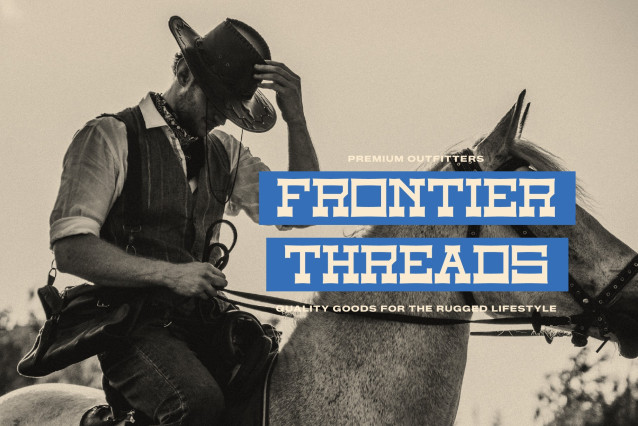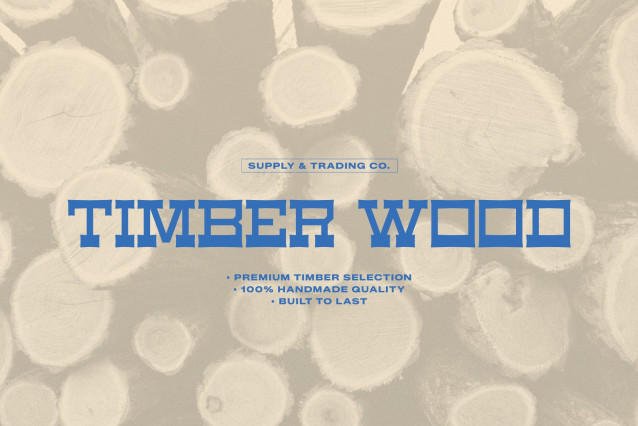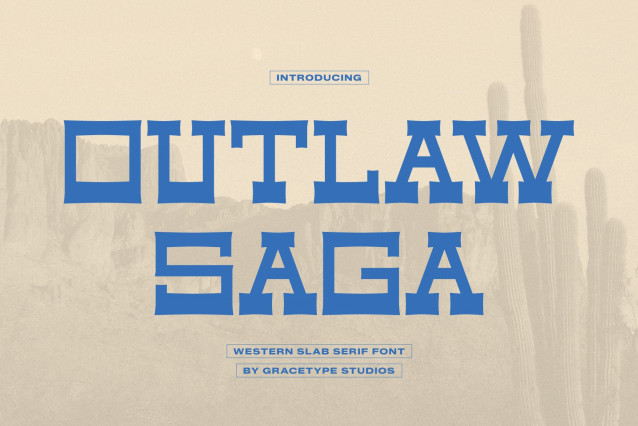
Outlaw Saga Western Slab Serif Font
Outlaw Saga Western Slab Serif, from gracetypestudio, suitable for any projects such as: logos, branding projects, homeware designs, product packaging, mugs, quotes, posters, shopping bags, t-shirts, book covers, name card, invitation cards, greeting cards, label, photography, watermark, special events, and all your other lovely projects that need a Slab Serif taste.
• Alternate and Ligature